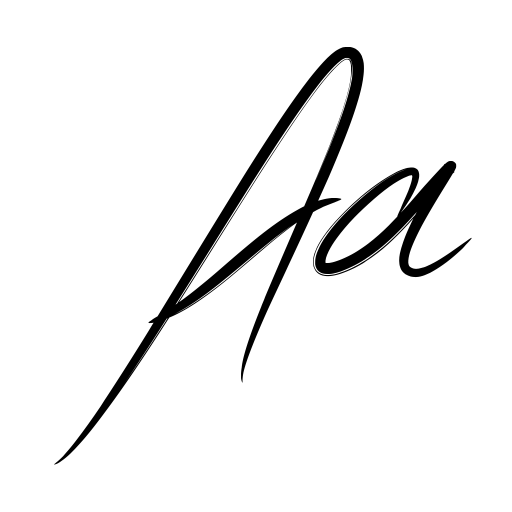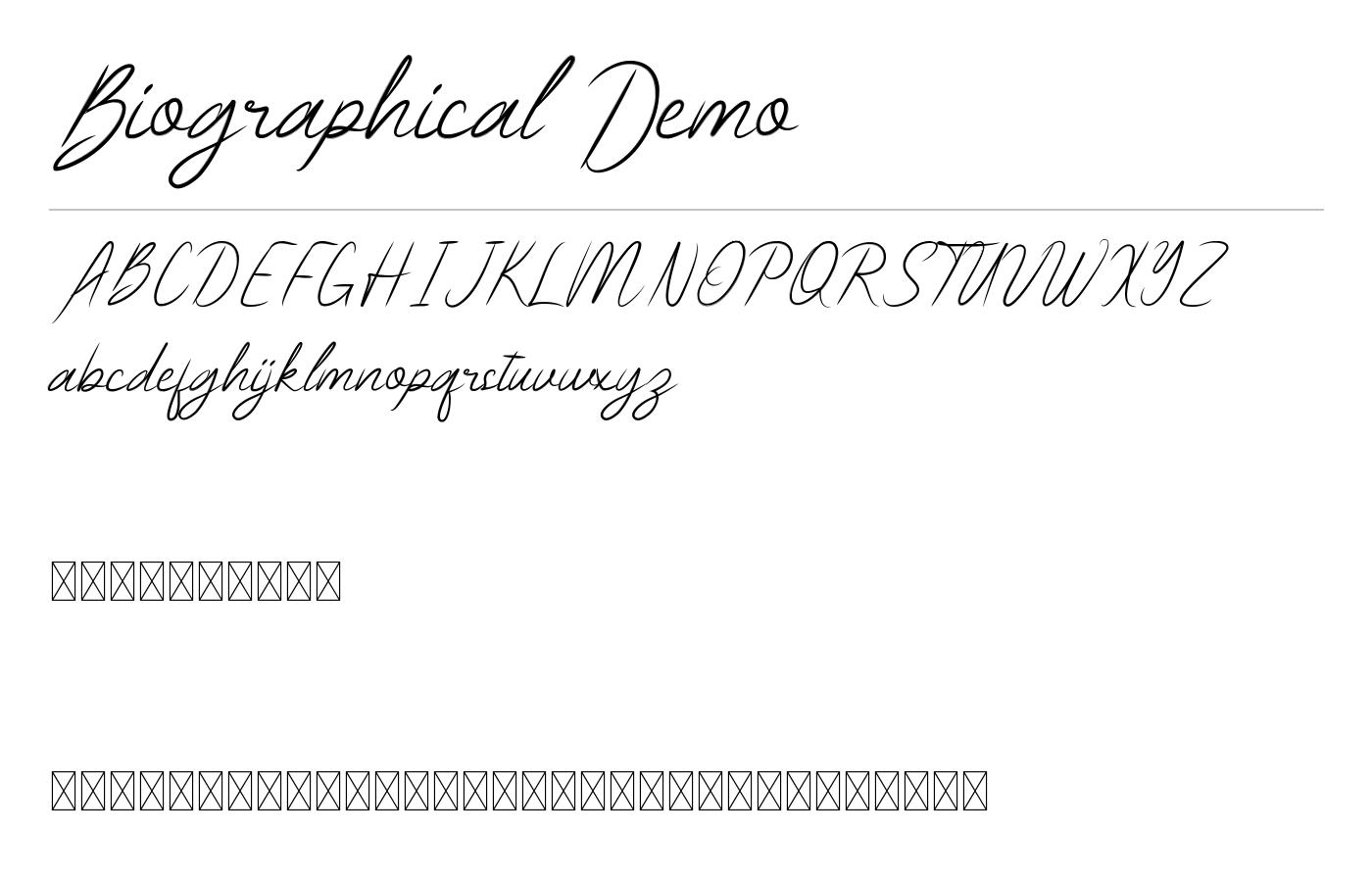
Biographical Demo is a delicate and elegant script font characterized by its thin, flowing strokes and a natural, handwritten feel. Its slender forms and graceful curves convey a personal and sophisticated touch, making it ideal for invitations, branding, and other creative projects that seek a refined yet approachable style. This font works best in contexts where a soft, intimate atmosphere is desired, such as personal letters, fashion editorials, and boutique logos.
Biographical Demo Font
About Biographical Demo Font
| Font family | Biographical Demo Font |
| Designer | Shalsha & Suci Anita |